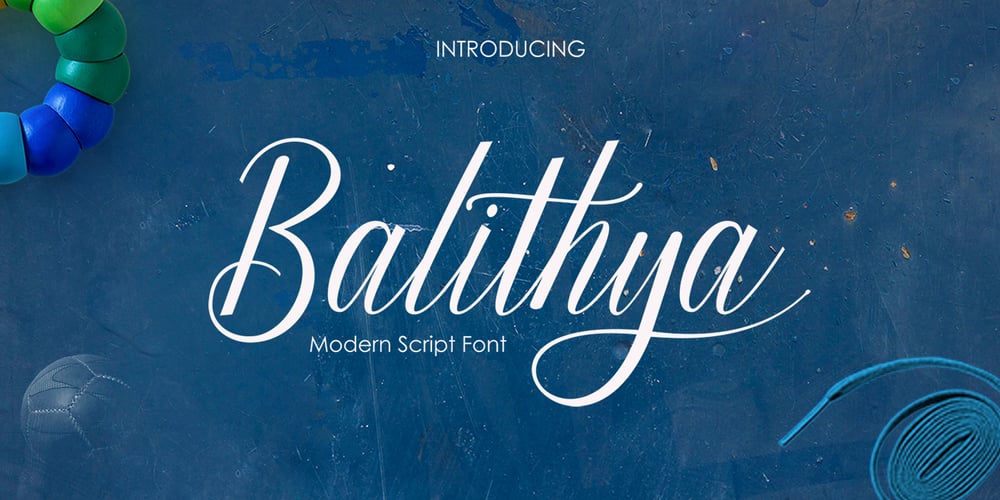
Balithya
Balithya font
Balithya Font Family was designed by Teuku Zulfikar and published by Josstype. Balithya contains 2 styles and family package options. Balithya Script, Hand Lettered Calligraphy Font with beautiful waves and natural flow. has a unique letter style, with natural handdrawn, and has a softer and smoother character subtly connect all the characters.They have a simple elegant swashes in separate letters, you can use graphic design software to access the alternate letter.Balithya Script is perfect for weddings, invitations, greeting cards, quotations, posters, branding, business cards, stationary, title design, header blog, excerpts of art, the art of typography, letter envelopes modern or design books, occurred styles such as design handwriting , title , letter marriage, pop vintage design, or purpose to make the project / art design we look beautiful and trendy.